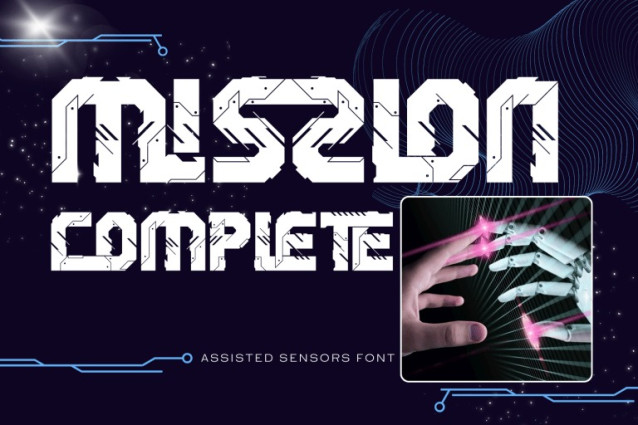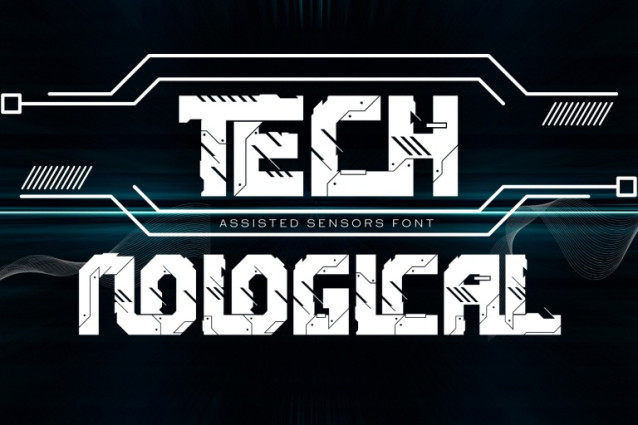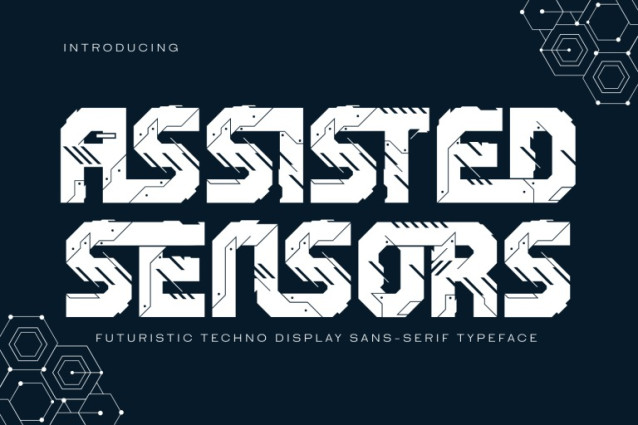
Assisted Sensors Font
ASSISTED SENSORS – CYBERPUNK FONT is a bold futuristic cyberpunk display typeface inspired by industrial design and advanced technology. Built with strong geometric forms and detailed mechanical elements, this typeface features circuit-like lines, panel cuts, and engineered shapes that create a powerful high-tech visual identity. Each letter is crafted to resemble a futuristic machine component, combining precision and complexity with a striking modular structure. ASSISTED SENSORS is perfect for gaming titles, sci-fi posters, tech branding, robotics themes, and digital interface design.
🔤Features:
Uppercase & Lowercase Letters
Around 100 Special Ligatures & Alternates
Accented Characters for multilingual support
🔤About 100 ligatures combined with Stylistic Alternates Font:
AC AD AL AN AR AS AT AU AV BE CA CE CH CO CT DE DI EA EC ED EE EL EM EN EP ER ES ET FE FO FR GE HA HE HI HO IE IC IL IN IO IR IS IT JU KE LA LE LI LL LO LY MA ME MI NC ND NE NG NO NT NS OC OF OM ON OO OP OR OT OU OW PA PR RA RD RE RI RO RS RT SE SH SI SO SS ST TA TE TH TI TO TR TT UM UN UR VE WI WO